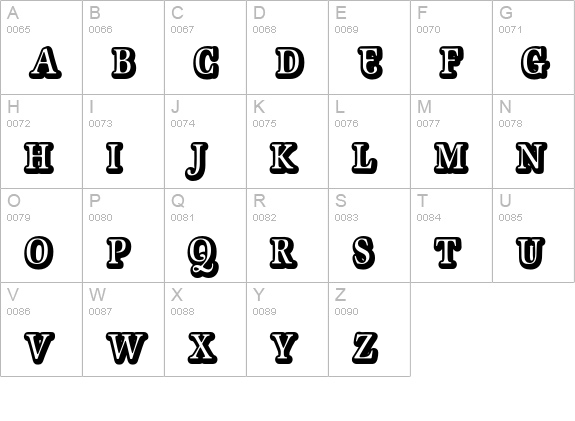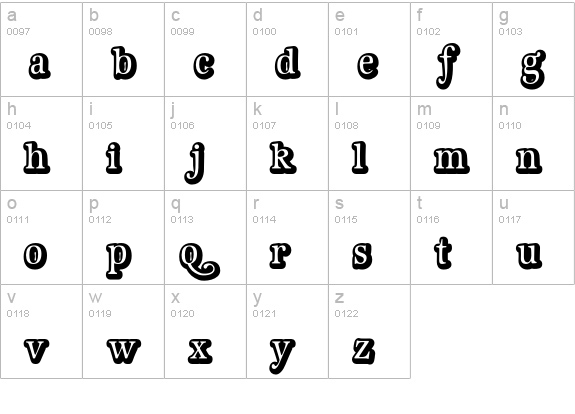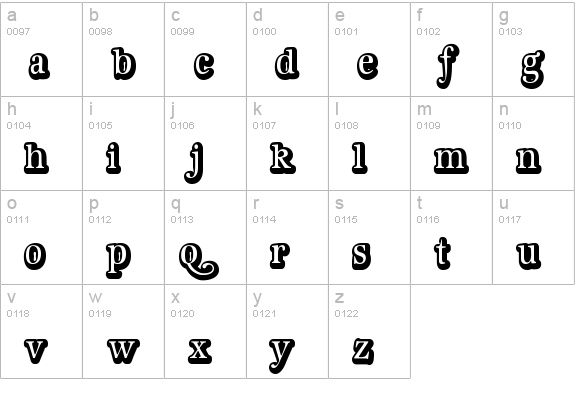
GeistShadow font is a captivating and modern typeface that exudes a mysterious and elegant vibe. With its sleek lines and subtle curves, this font is perfect for adding a touch of sophistication to any design project. The GeistShadow font is available for free download at FontsMarket.com, making it easily accessible to all designers and creators looking to elevate their work with a unique and stylish font choice. Whether you're working on a logo, website, or any other creative project, GeistShadow font is sure to make a lasting impression with its distinct and alluring appearance.